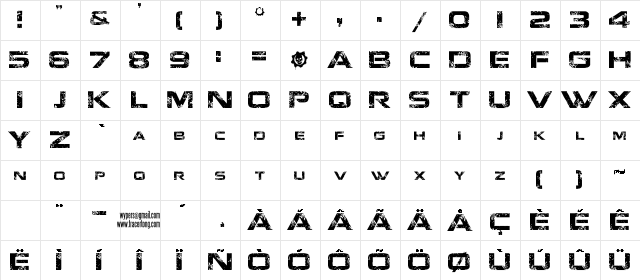
Jacinto Sans Regular
Design Context for Jacinto Sans
Jacinto Sans is a composed and adaptable typeface that performs quietly and consistently across a wide range of design contexts.
Pro Tip: Use Jacinto Sans in both headline and body roles to test its range before committing to a single application.